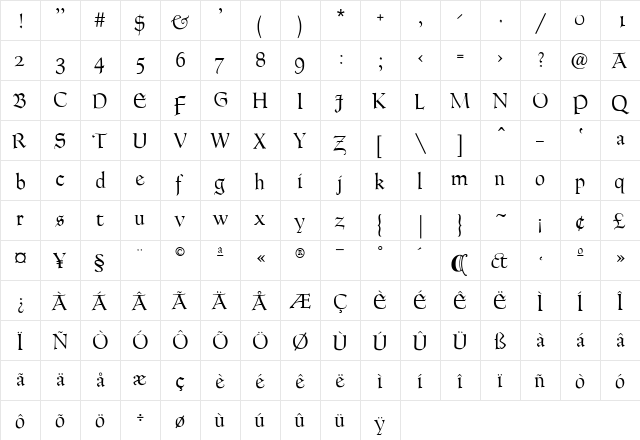
GoudyThirtyHW Regular Font Preview
GoudyThirtyHW Regular
GoudyThirtyHW Regular Font Details
| Foundry | c. Lanston Type Co Ltd |
Design Context for GoudyThirtyHW Typeface
GoudyThirtyHW is a composed and adaptable typeface that performs quietly and consistently across a wide range of design contexts.